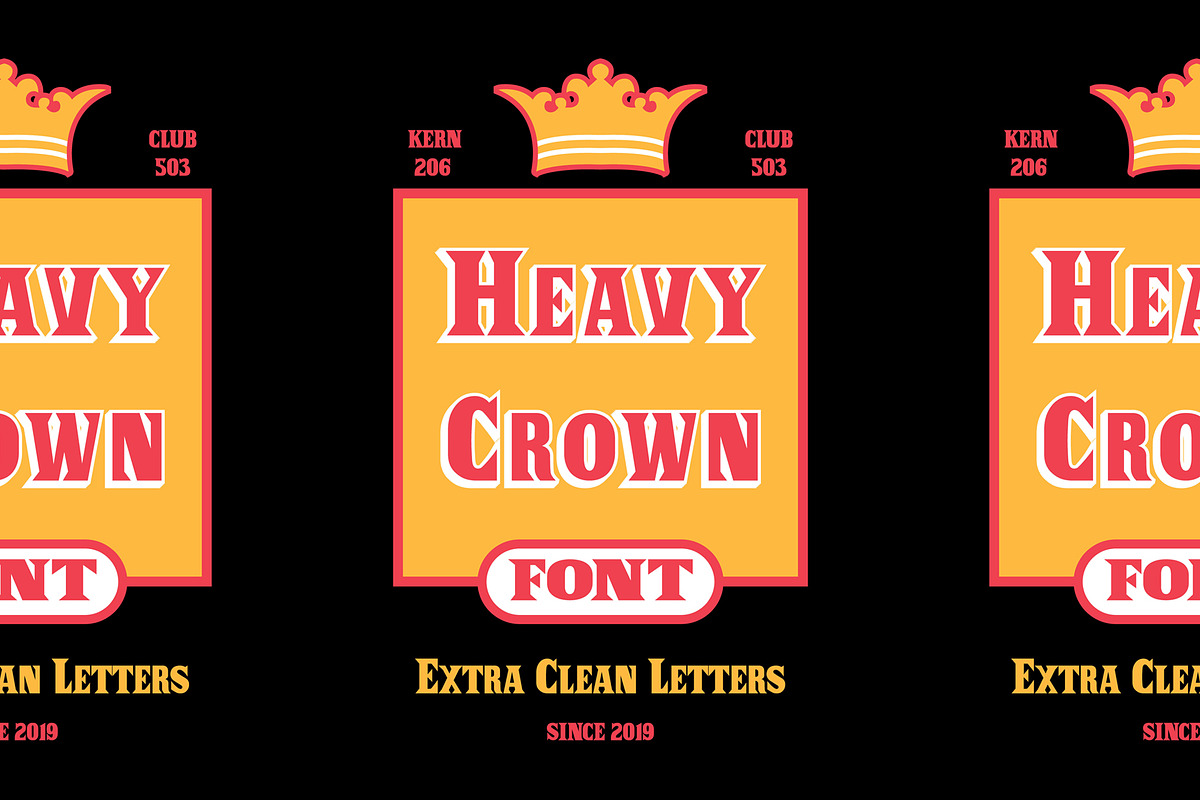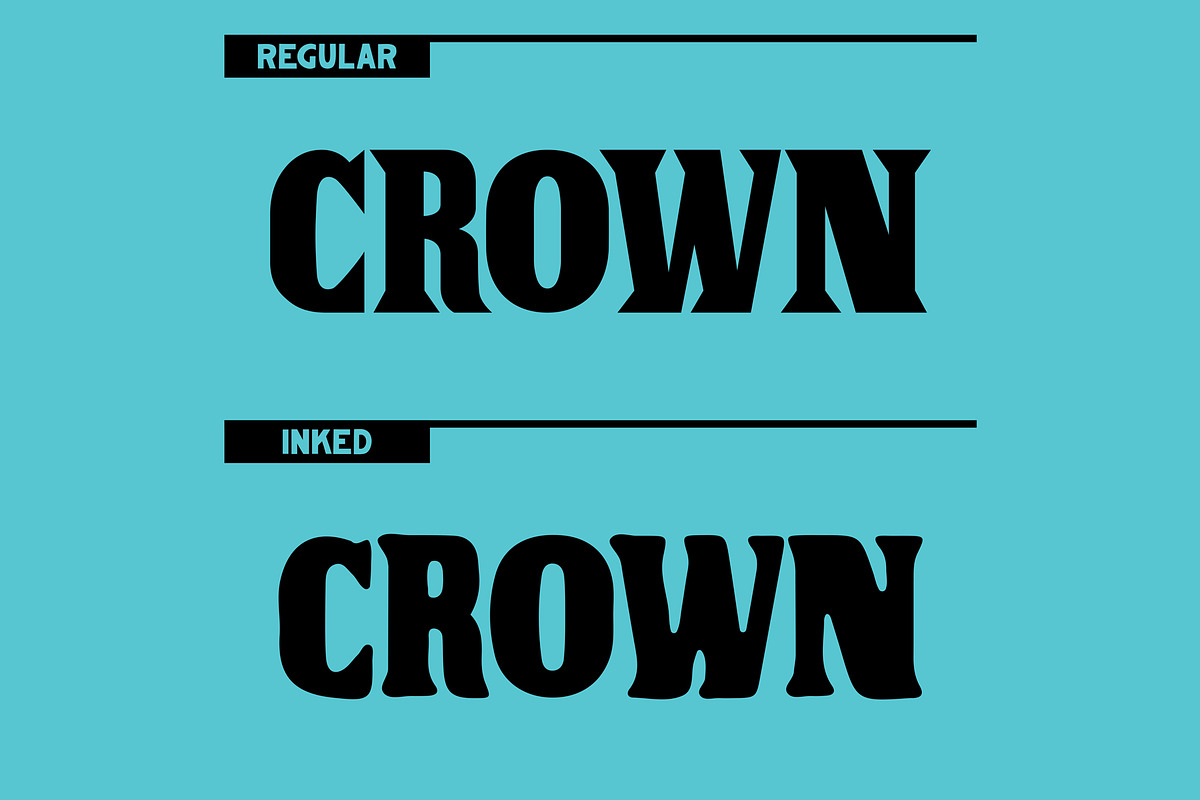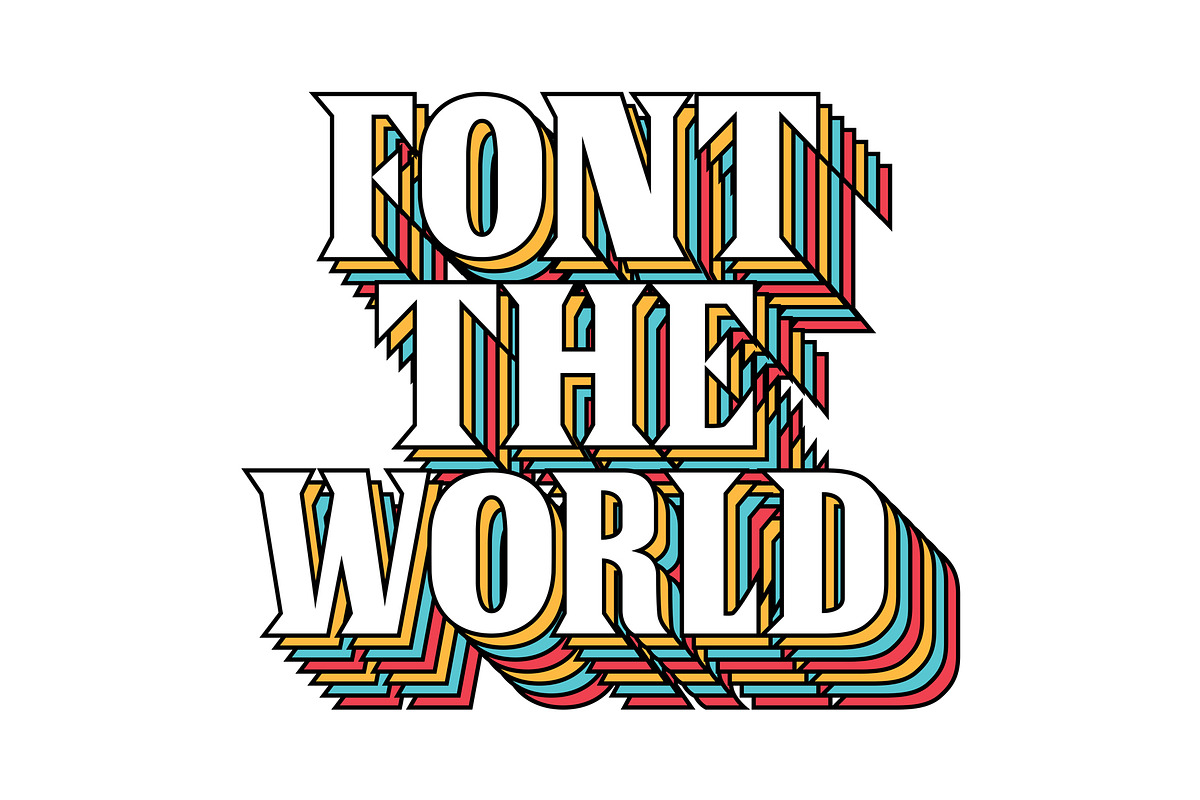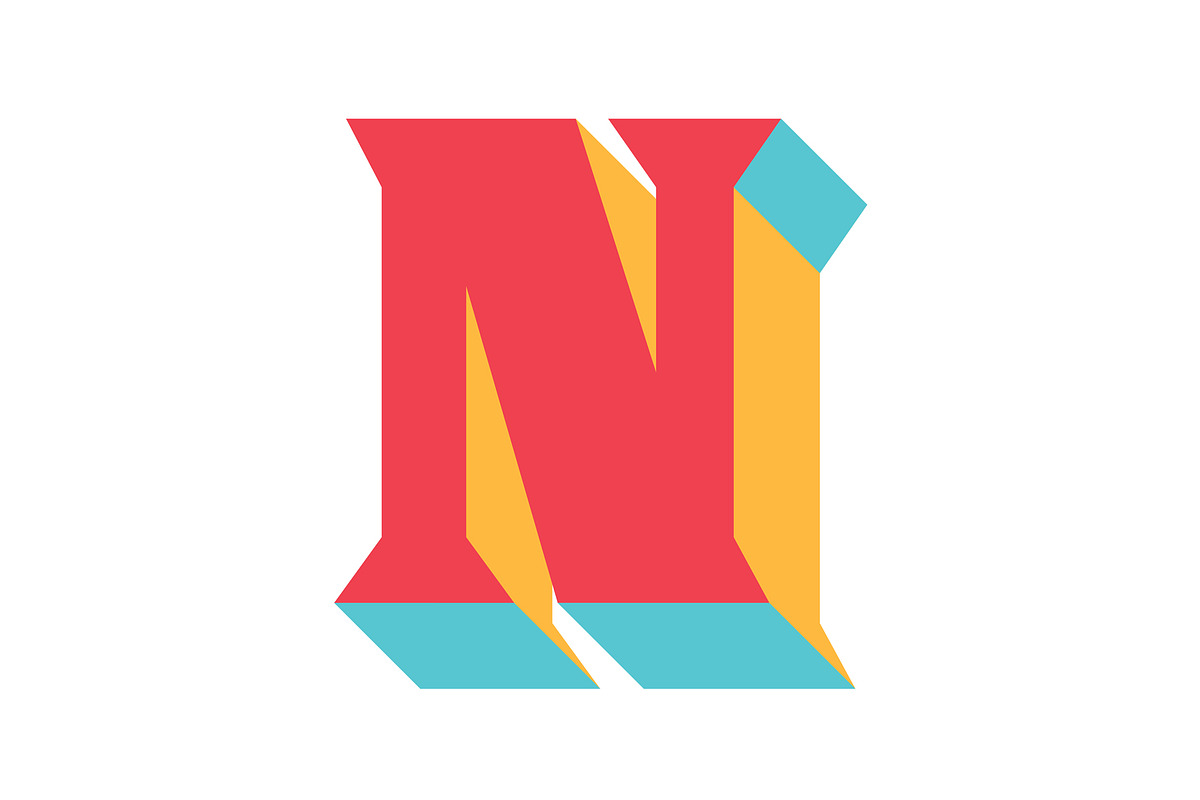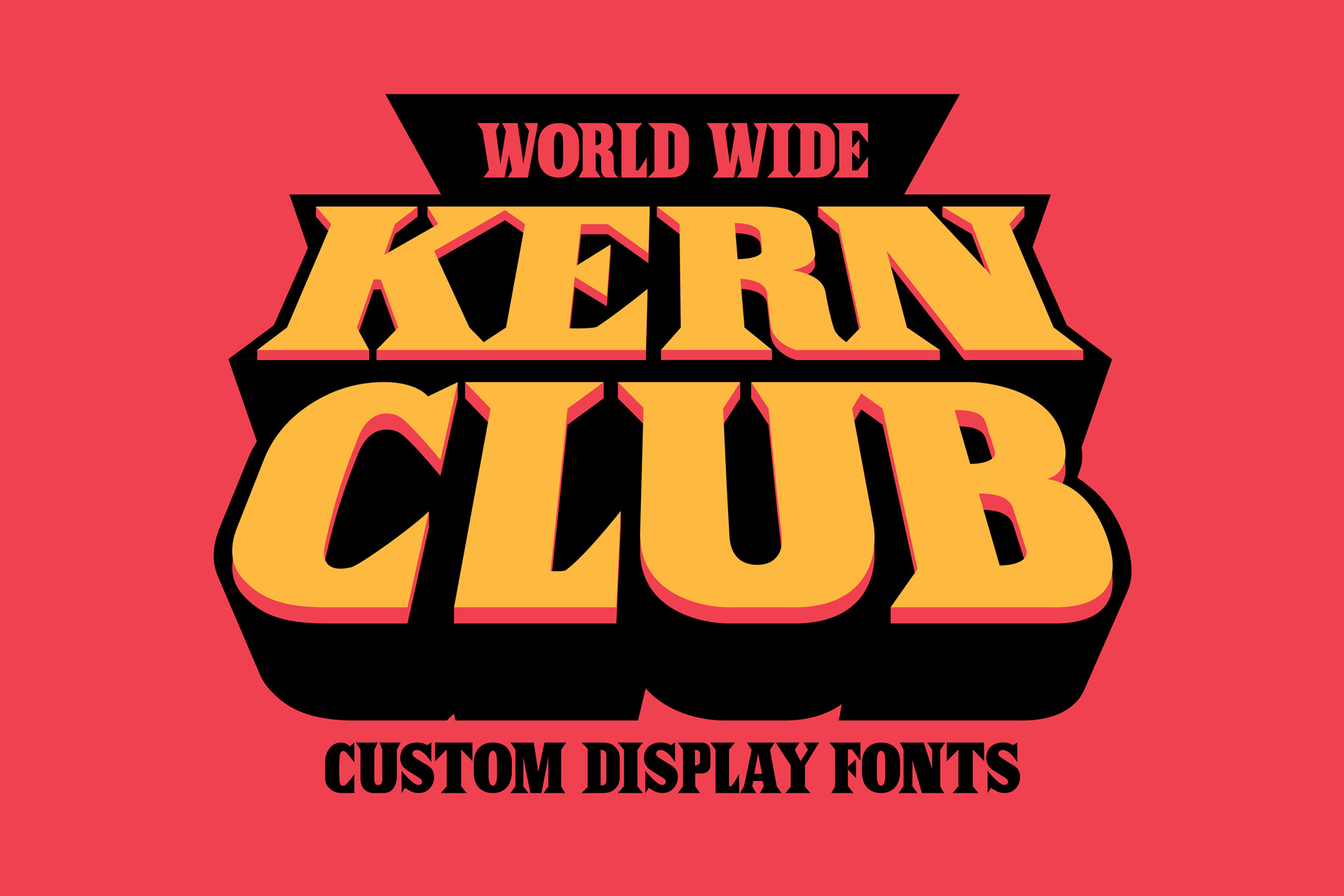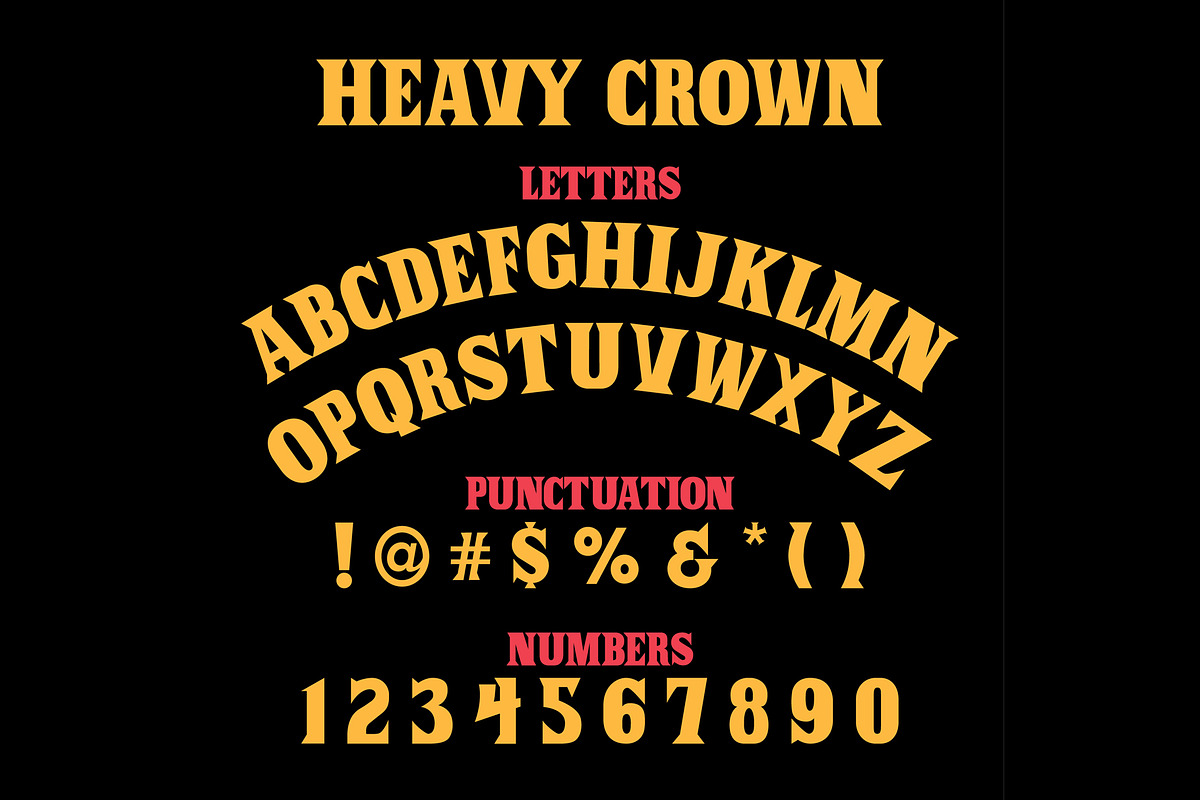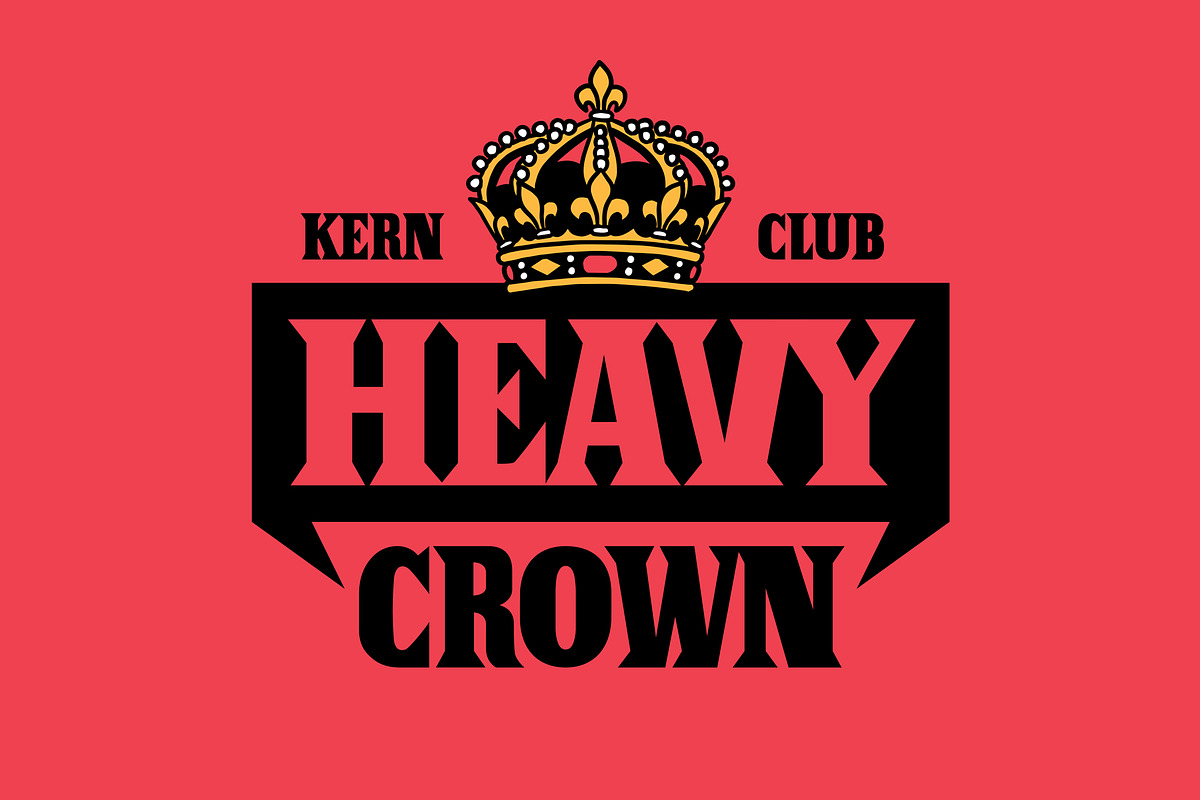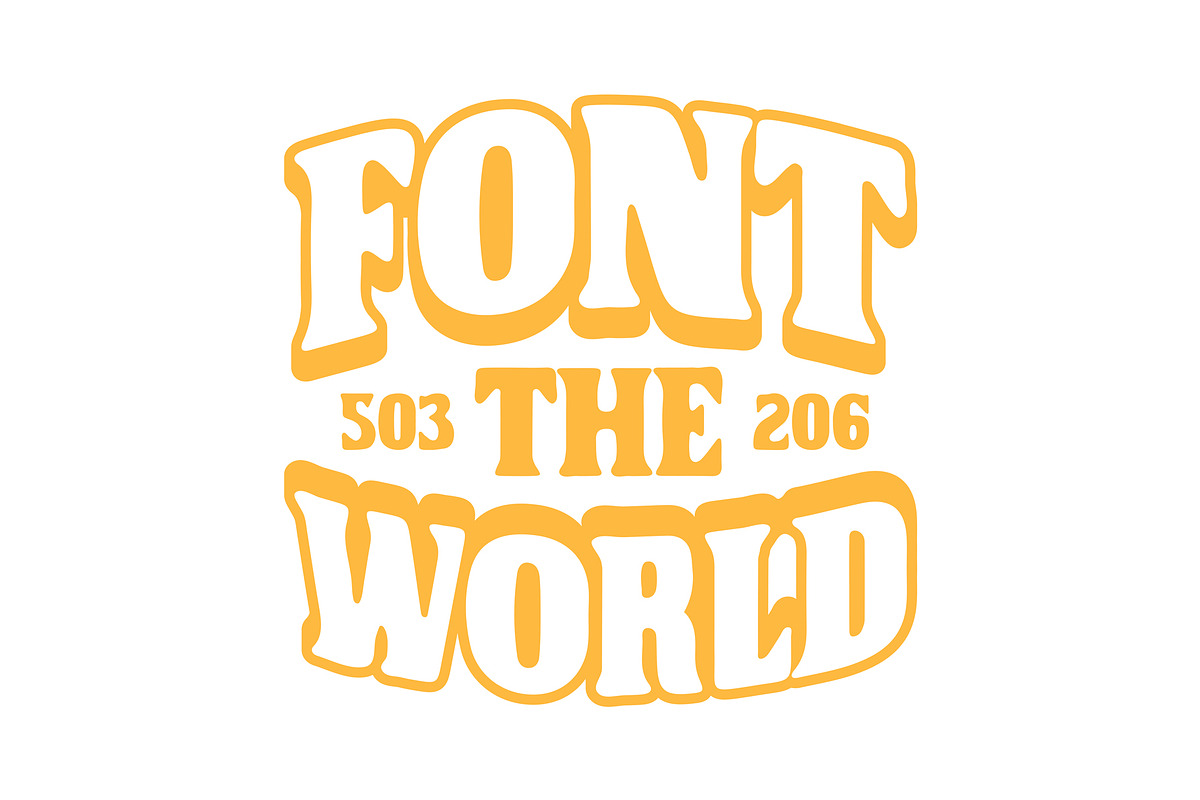
Heavy Crown Font
80s horror font with an elegant touch
- Uppercase Character Set A-Z
- Includes a regular version and an inked version
- Numerals & Simple punctuation